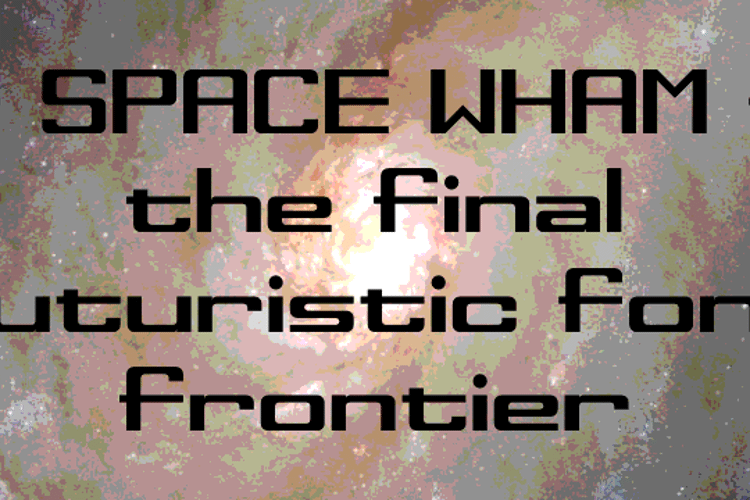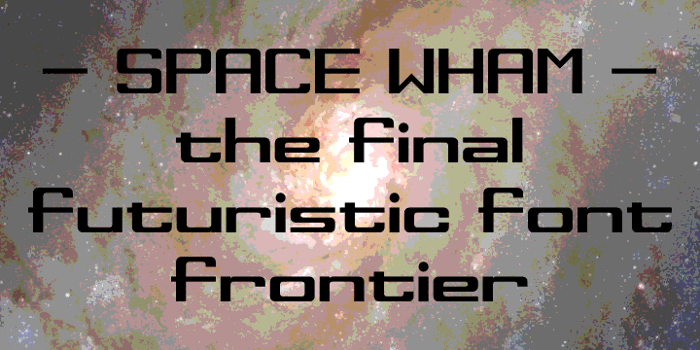
Space Wham Font
by Pixel Kitchen
A slightly chimeric sci-fi design with no relation to Space Blam, Space Cram, Space Dam, Space Flam, Space Gram, Space Ham, Space Jam, Space Kazaam, Space Ma'am, Space Pram, Space Ram, Space Slam, Space Spam, Space Tram, or Space Yam.
In making this I attempted to achieve a harmony between angles and curves. You can see it especially well on "B", "3", "8", and "&".
Recent updates: "J" improved, lowered "*" so it wouldn't touch the line above it, added "¡£¥©®¿€™" and many other punctuation symbols.